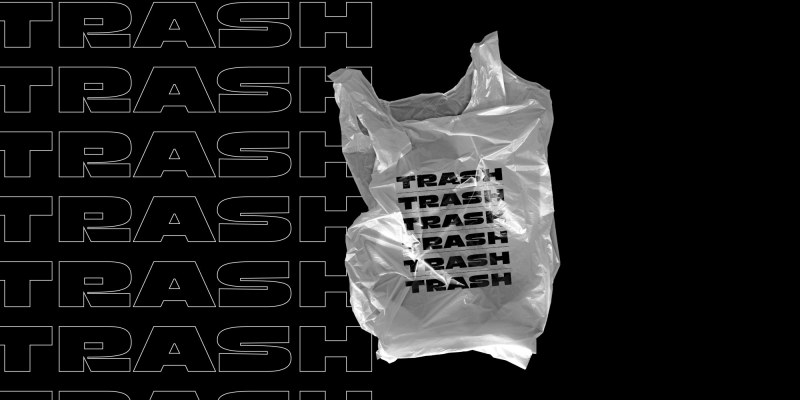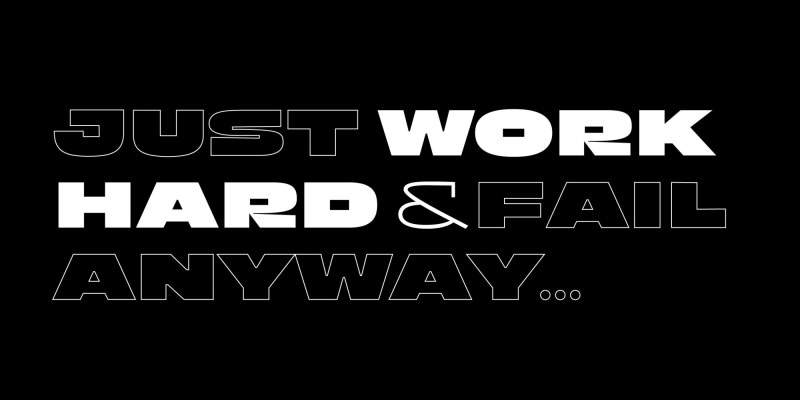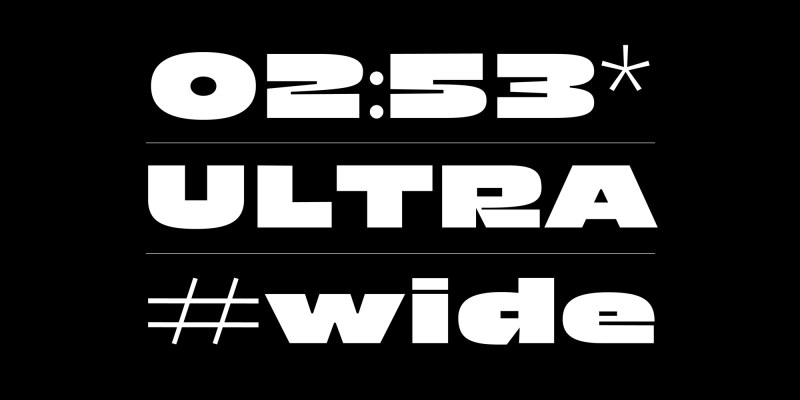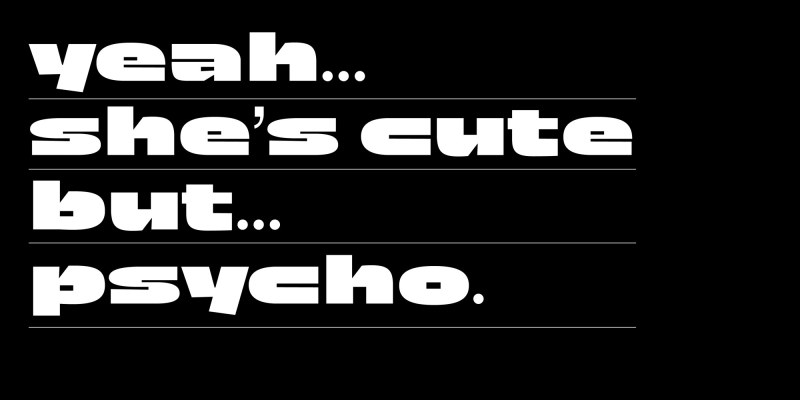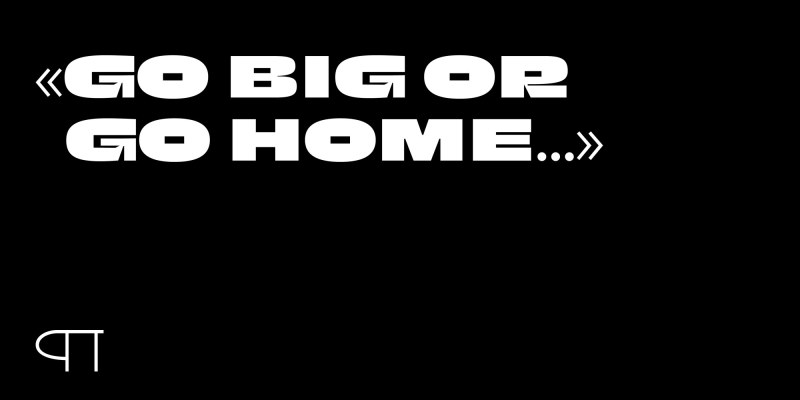
Gabriella Font
Gabriella is a wide, emotional and striking typeface. Its extreme shapes and super heavy weight make her hard to miss, yet full of character and gifted with a special ch…
Gabriella is a wide, emotional and striking typeface. Its extreme shapes and super heavy weight make her hard to miss, yet full of character and gifted with a special charm. A strong and modern design that will make no message go unnoticed. In “The Little Mermaid”, Gabriella was Ariel’s deaf Latina friend who loved to dance. Gabriella rendered a great lesson of inclusiveness for people with disabilities and minorities. With this typeface Gabriella continues to speak up, sing and dance.
Where Gabriella Font works best
Gabriella Font is built for size: event posters, hero headlines and billboard-style layouts.
High contrast display type like Gabriella Font reads instantly in thumbnails and motion graphics.
What is Gabriella Font good for?